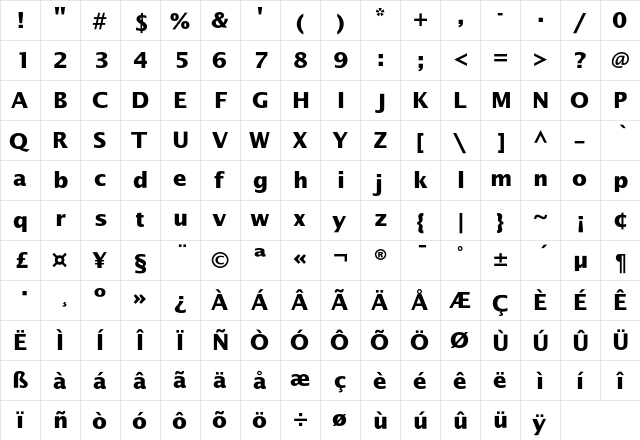
LucidaSansEF Bold
Design Context for LucidaSansEF Typeface
LucidaSansEF takes a measured approach to typography — its balanced proportions and neutral character make it a reliable workhorse for both digital and print work. The heavy weight commands attention and anchors typographic hierarchies.